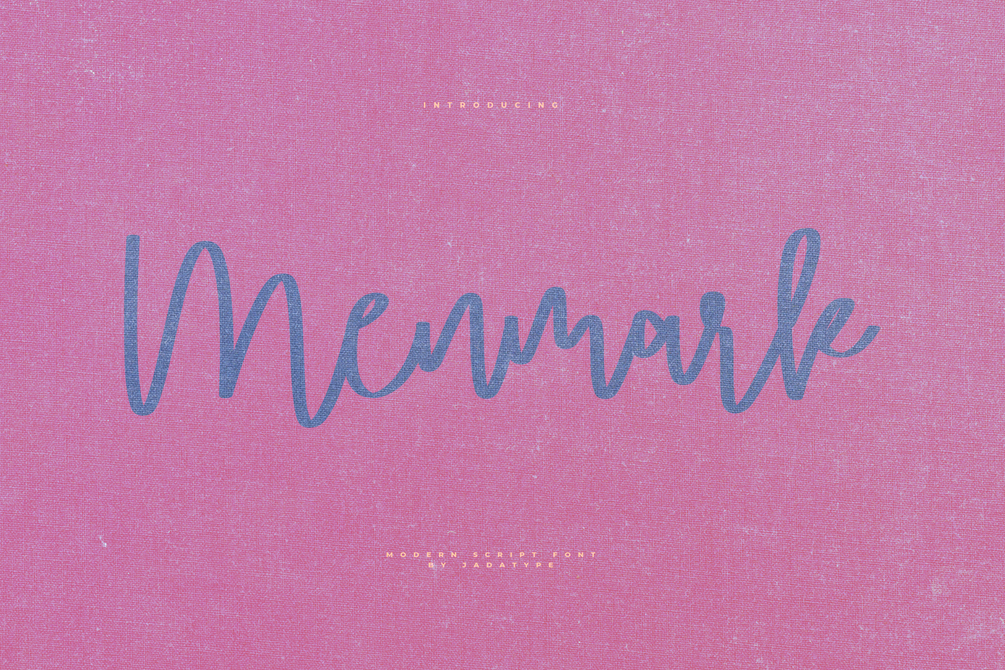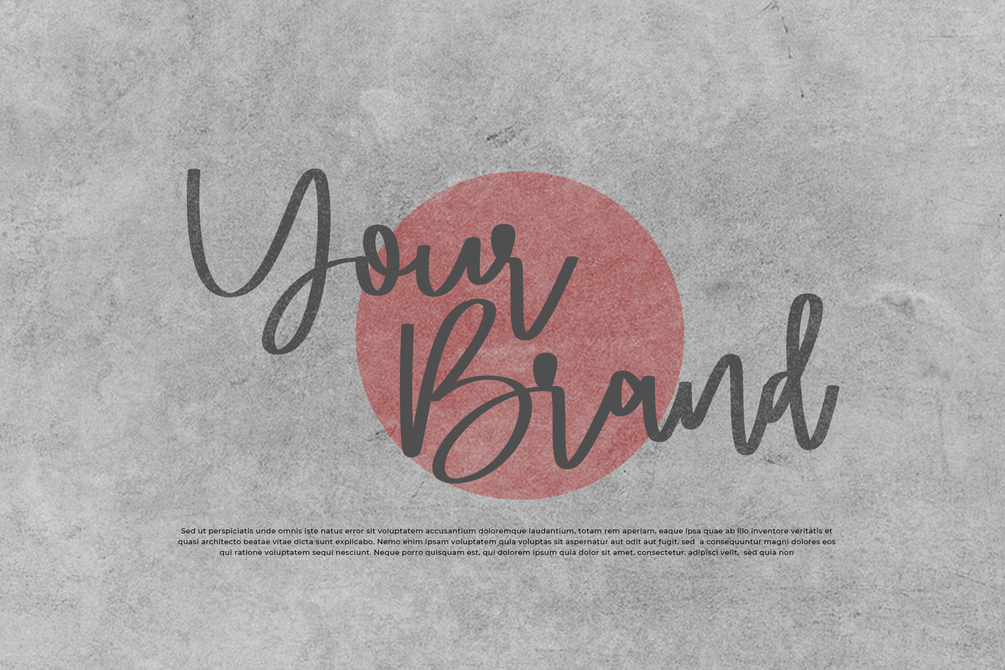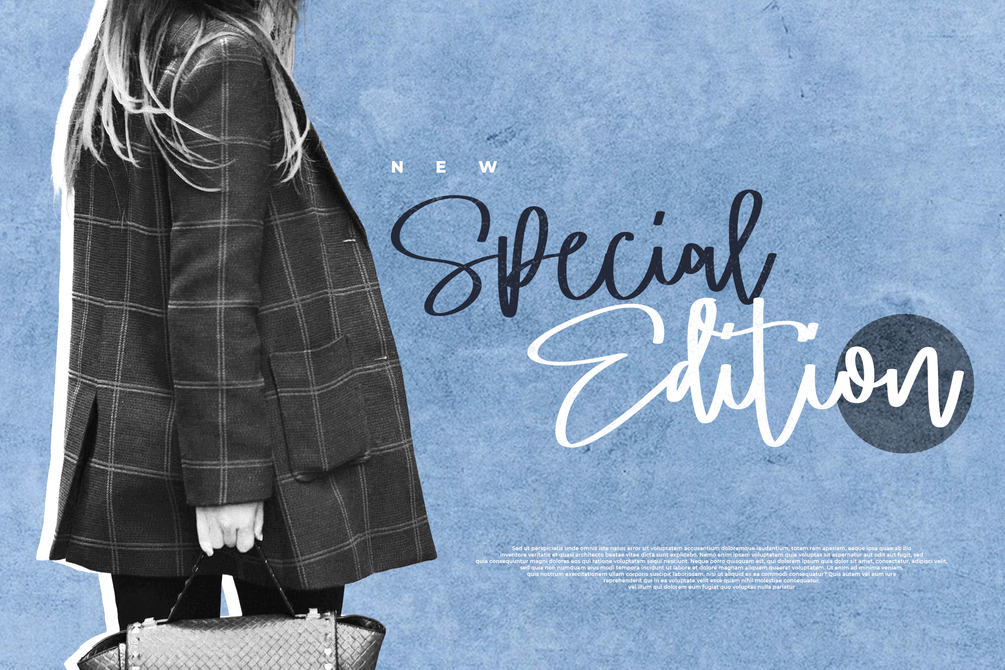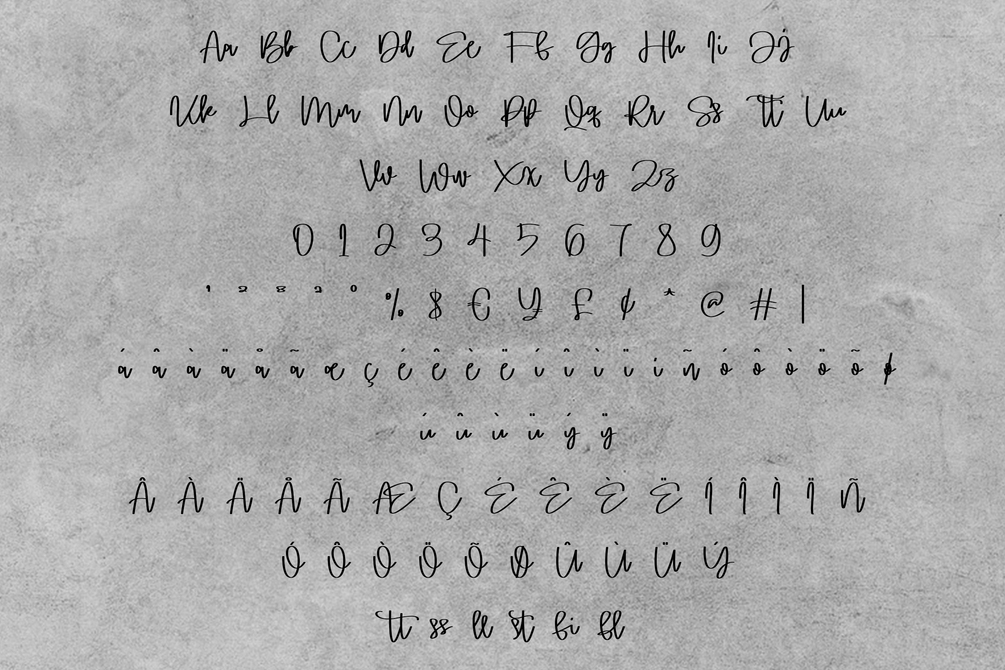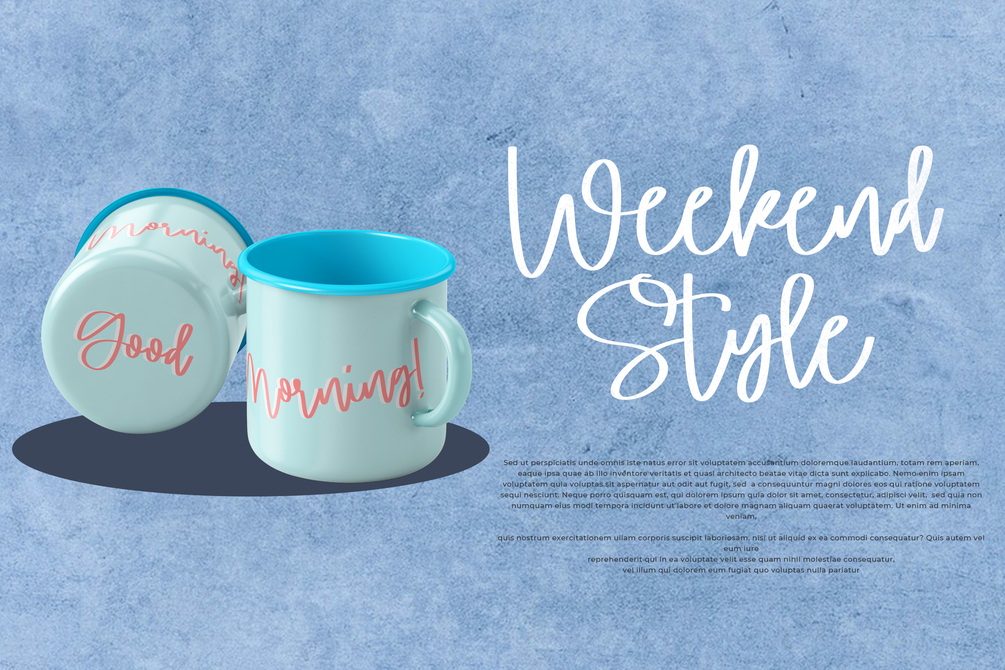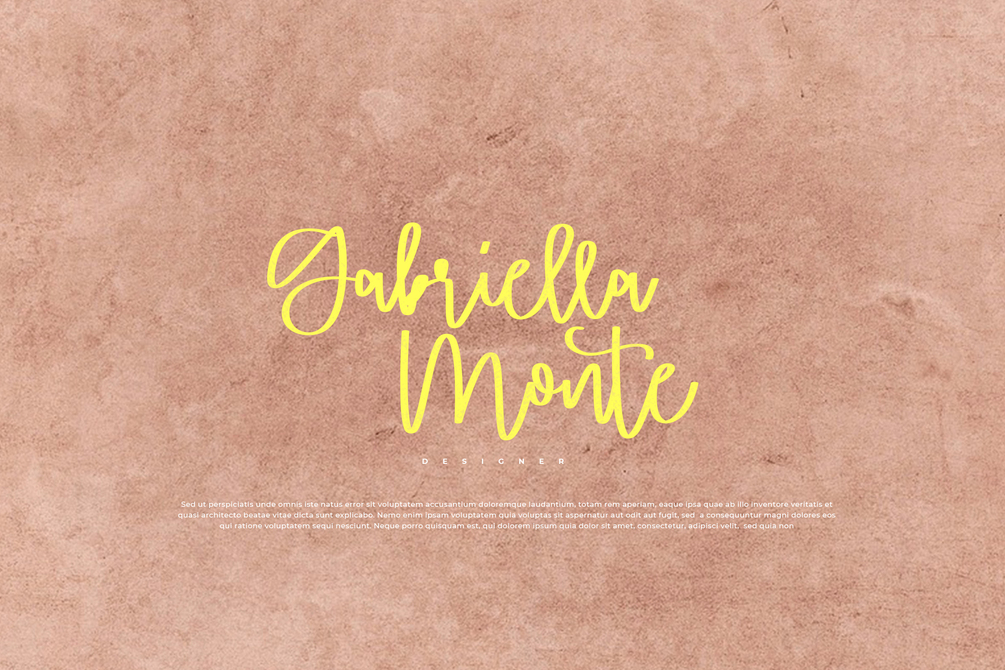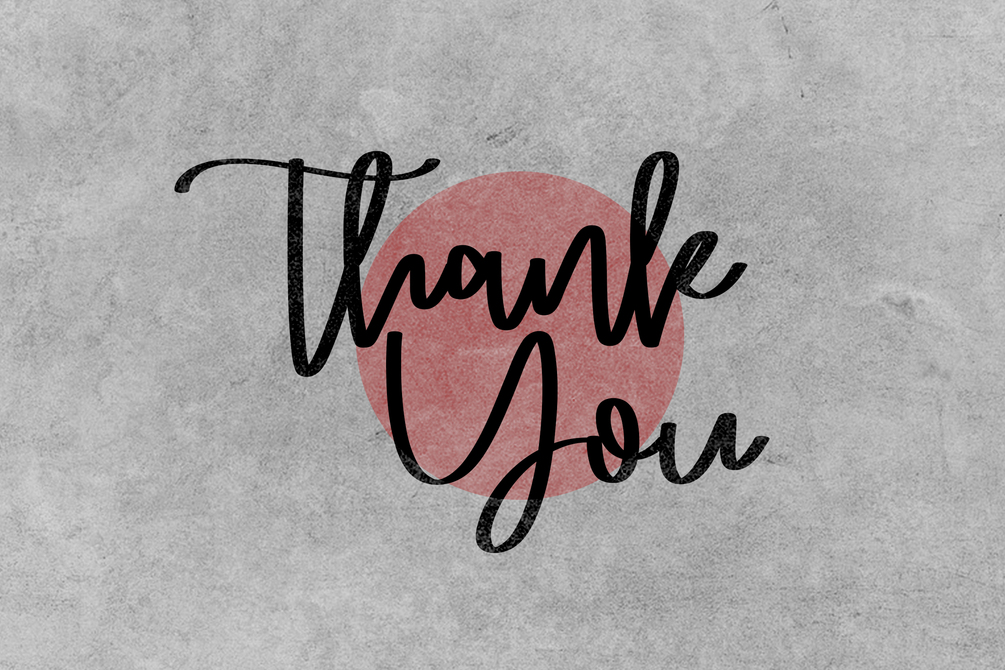
Menmark Font
Menmark is a script font that comes with a Modern style. suitable for posters, tshirt, website, social media, and so on. contains standard English letters, numbers, punctuation, and several accents that support multilingualism.